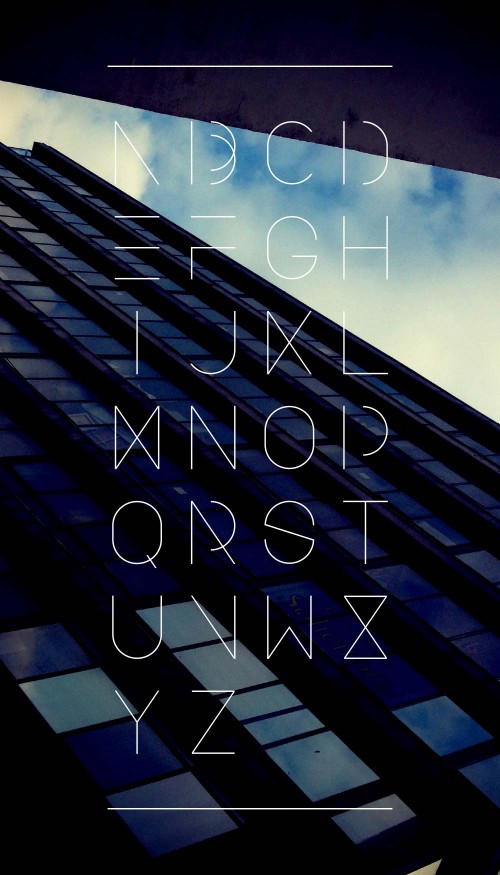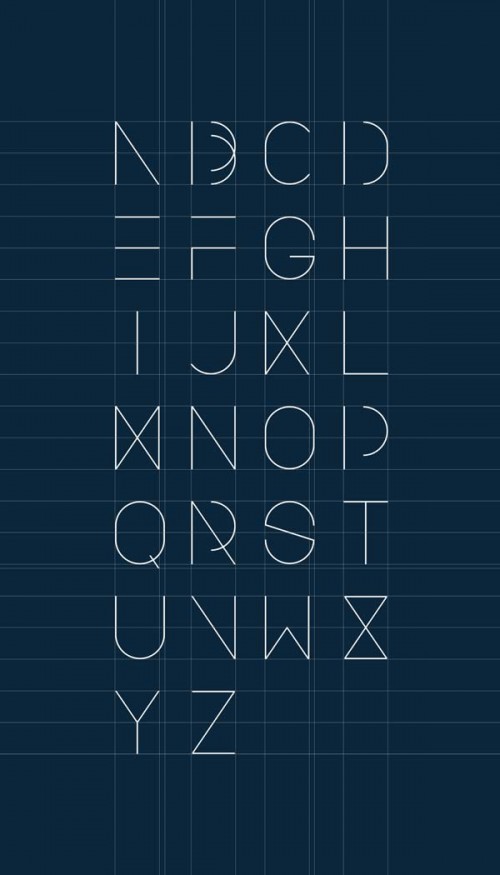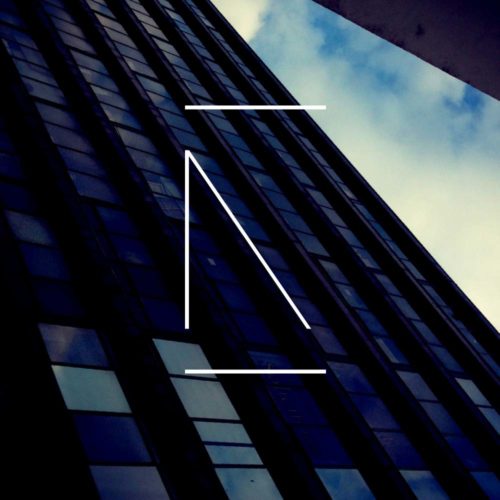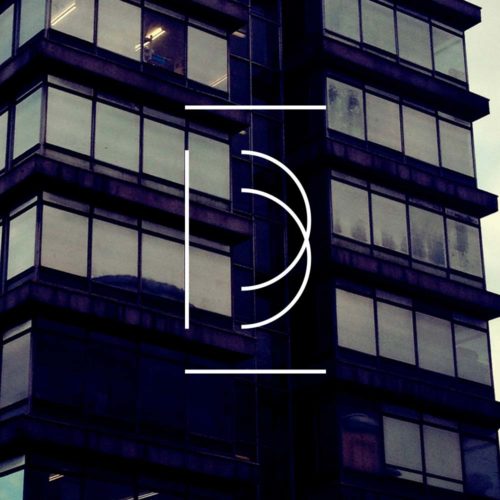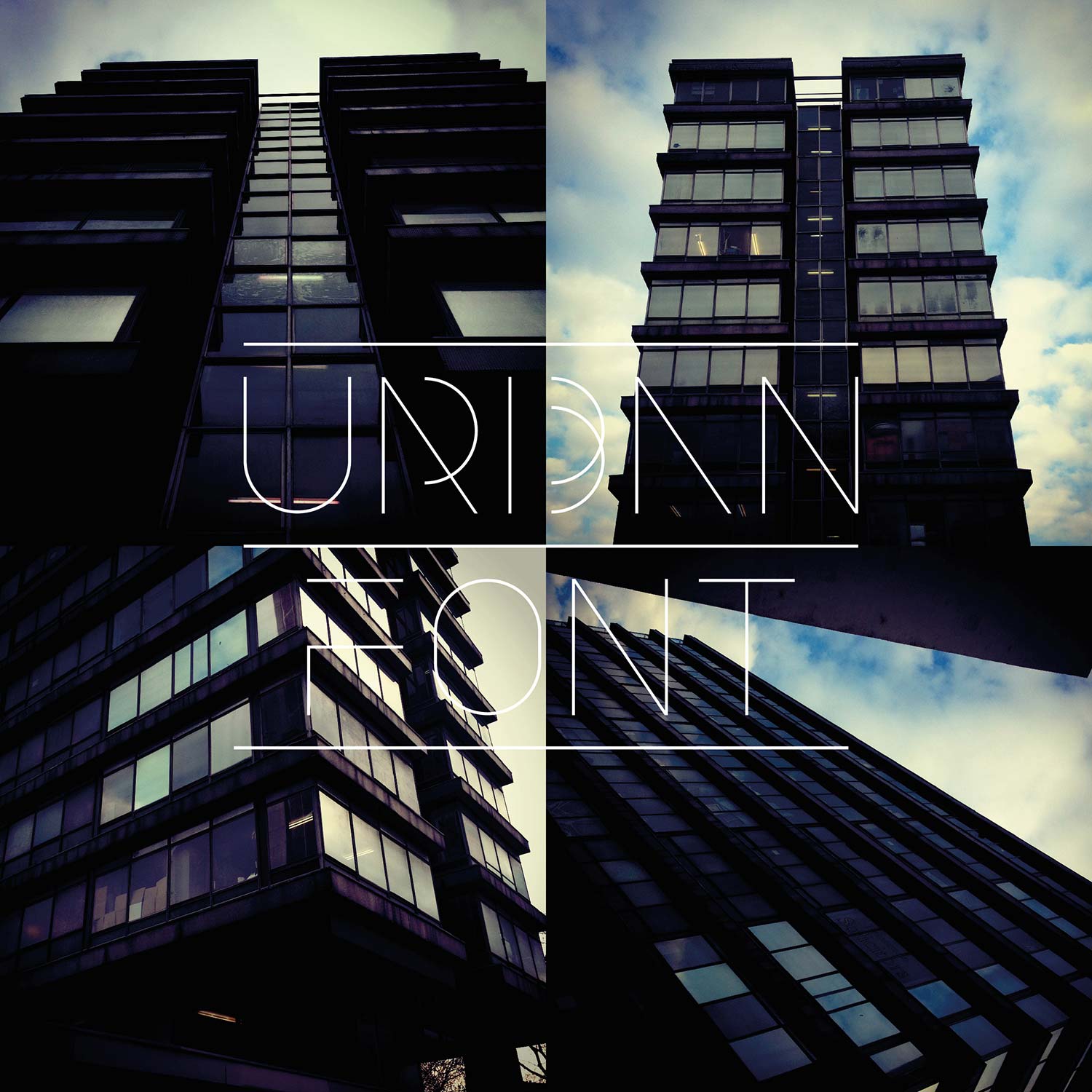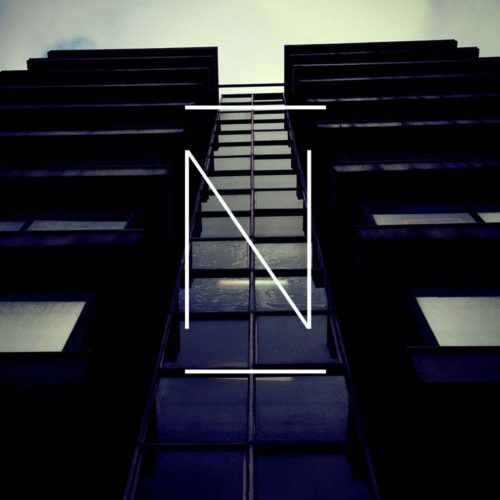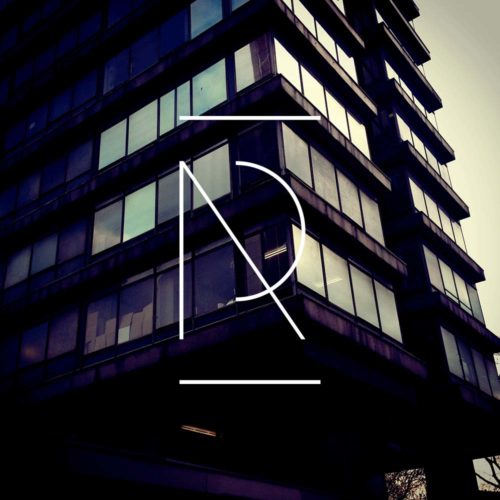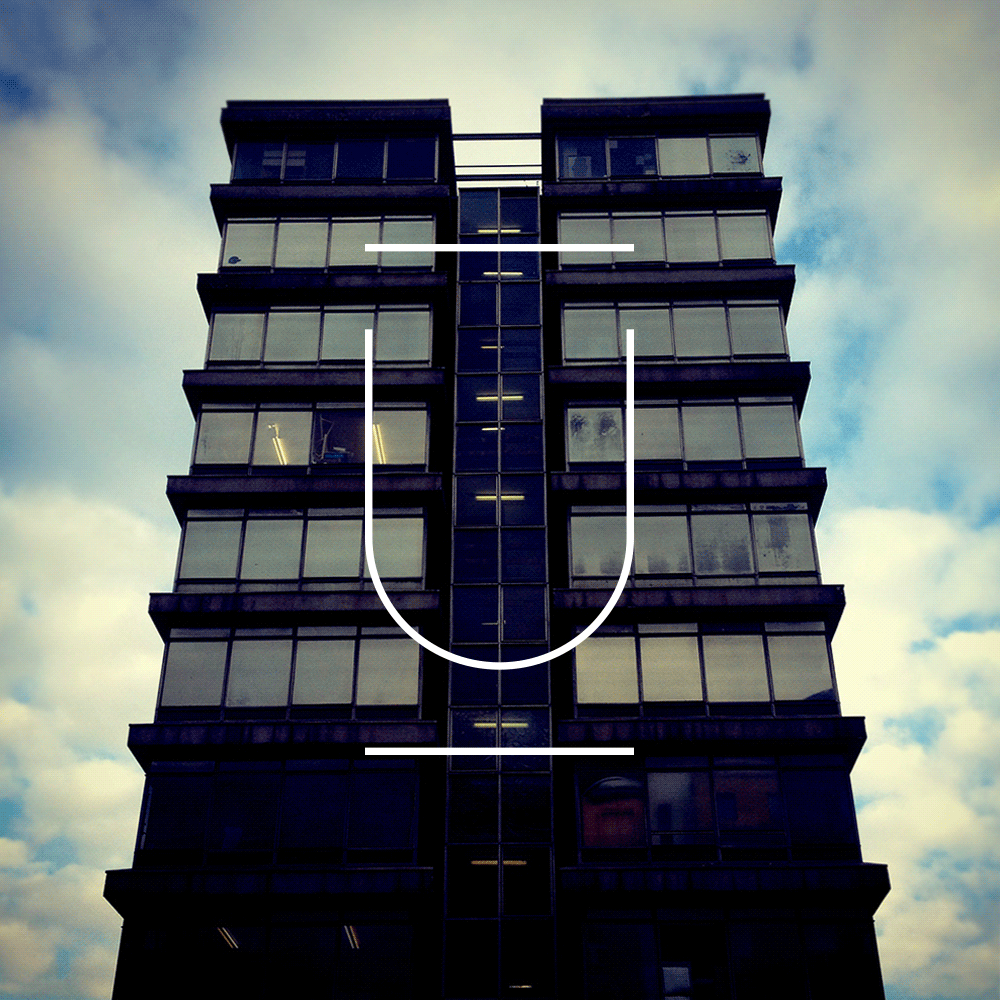
Urban Font by Design Devision
Urban is an uppercase typeface inspired by the urban architectural environment of London and the variety of iconic concrete and sculptural buildings that expand across the city’s skyline. The font uses strict lines and clear curves that create balanced geometrical shapes, adopting an architectural simplicity and functionality. Every letter has been built on a rectangular grid using the border and center points of its plane in different compositions. They are thus articulated in space using a system of balanced proportions, similar to the mathematic ones used in architecture.